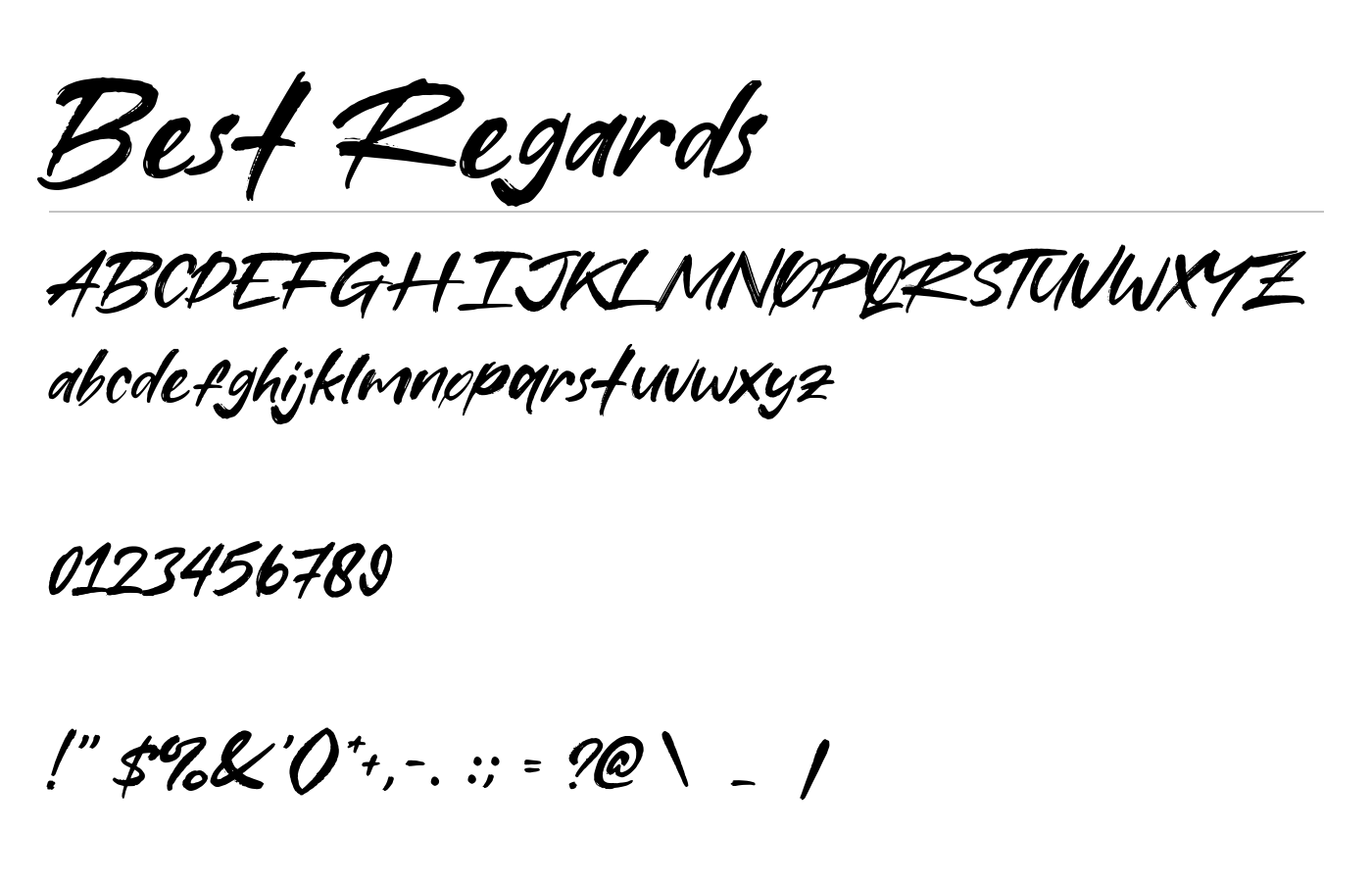
Best Regards is a lively and expressive script font that mimics natural brush strokes with rough edges and dynamic weight variation, giving it a hand-painted, casual feel. Its slightly condensed letterforms and fluid connections make it ideal for adding a personal, artistic touch to creative projects, branding, and headlines where warmth and character are desired. This font works well for invitations, fashion logos, and editorial designs aiming for an authentic, approachable style.
Best Regards Font
About Best Regards Font
| Font family | Best Regards Font |